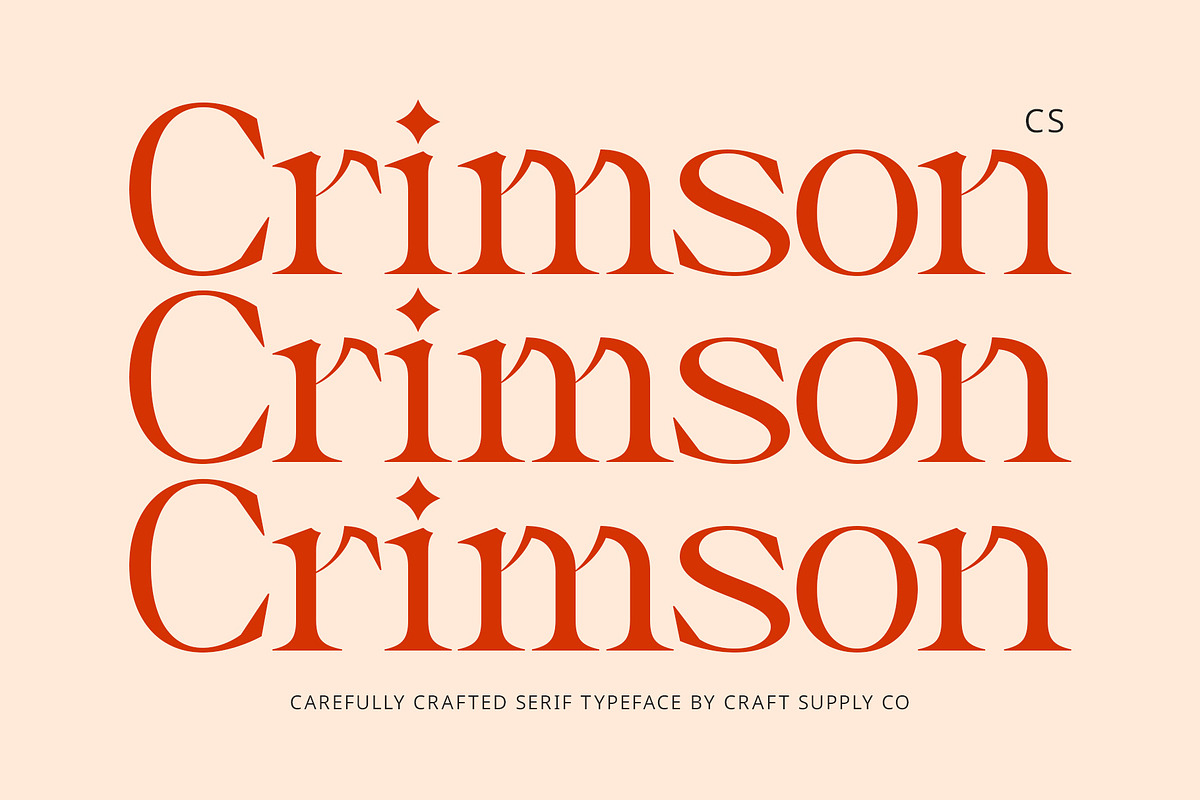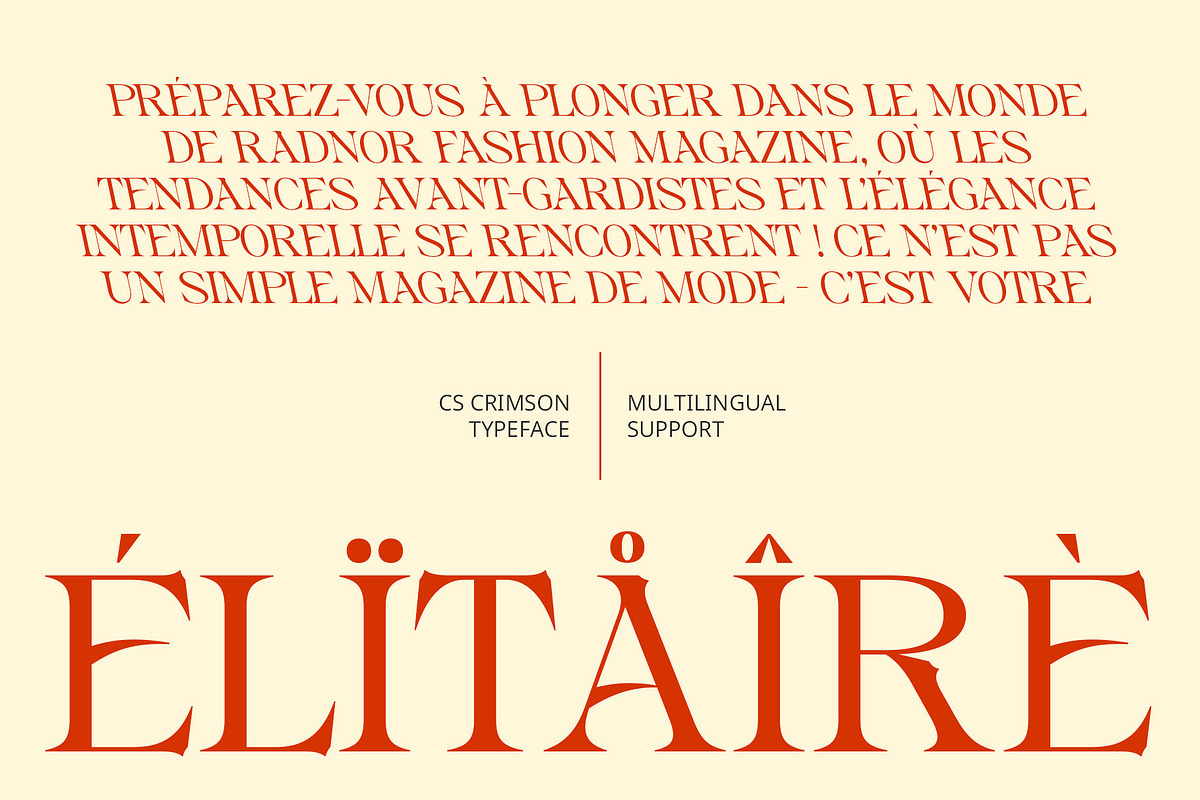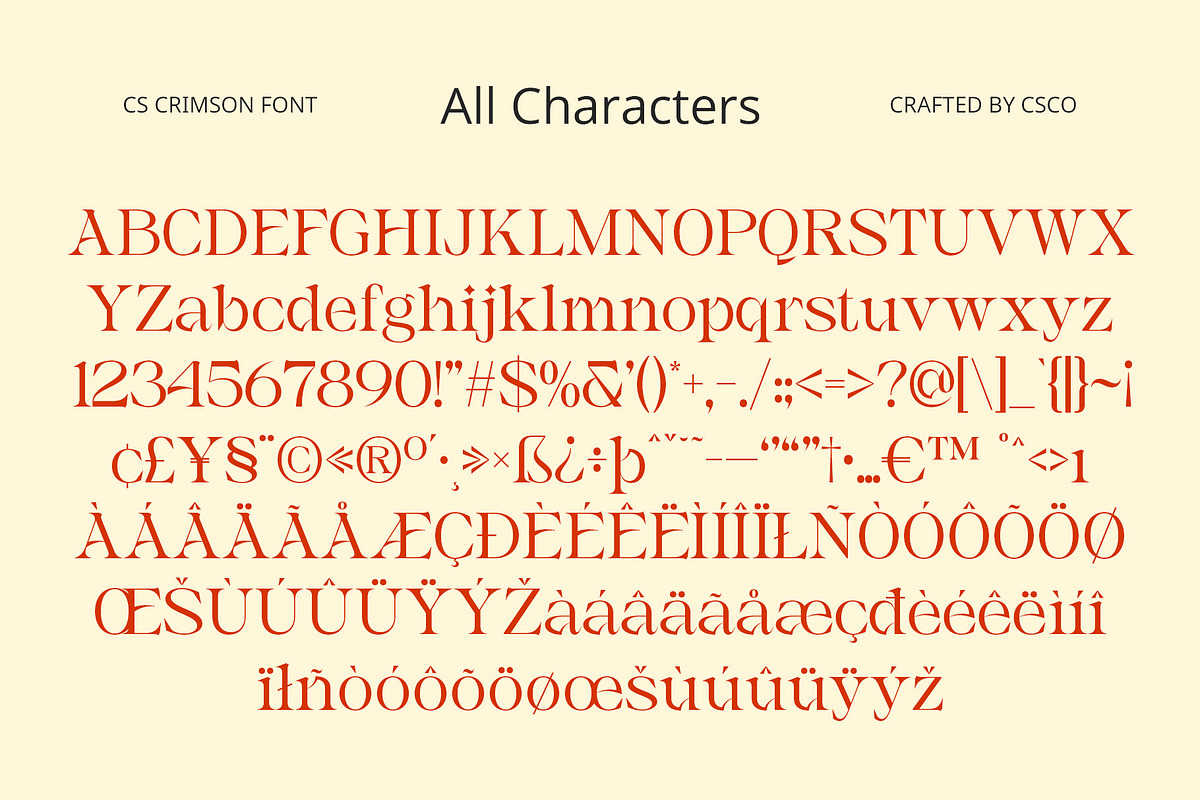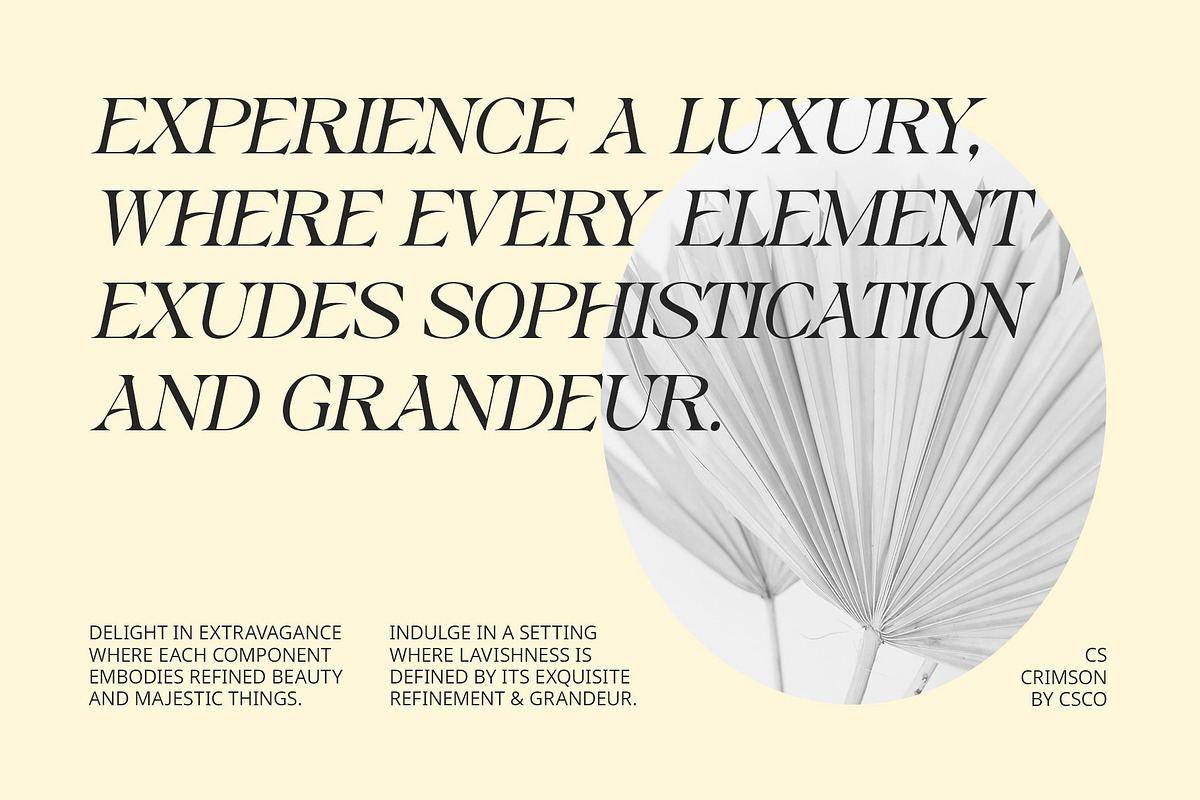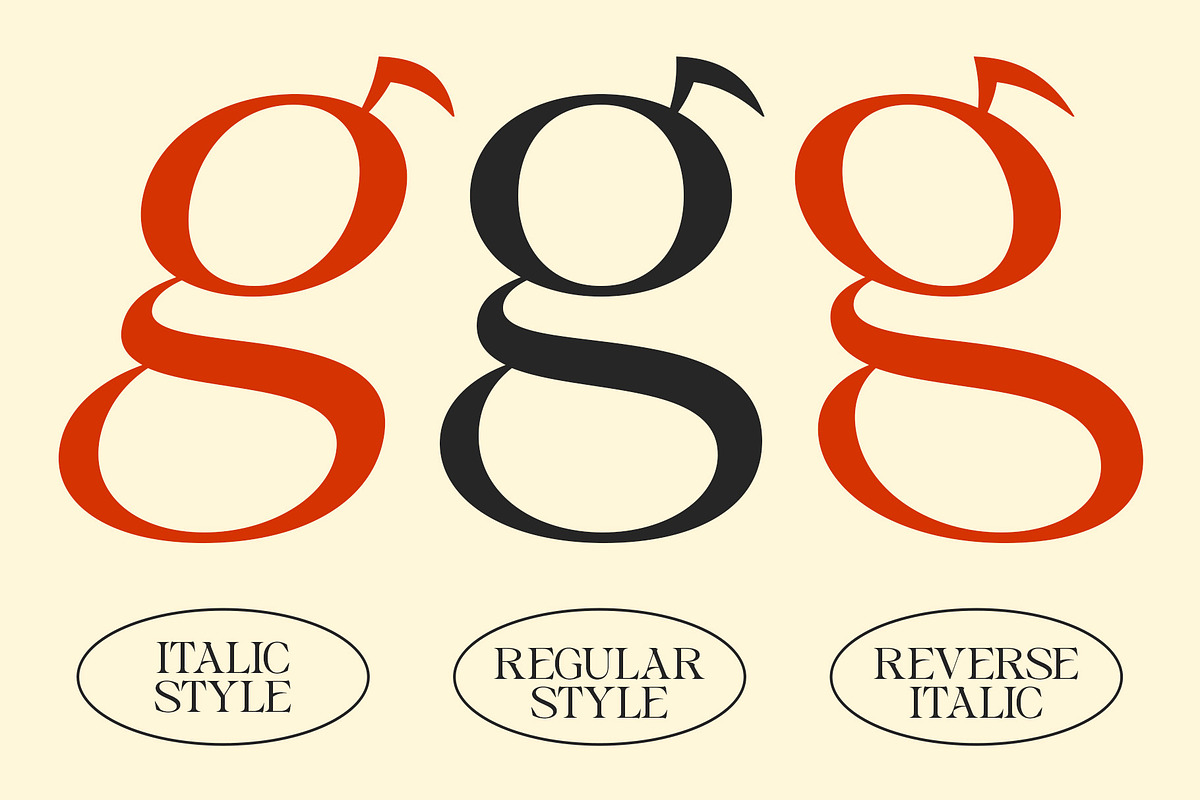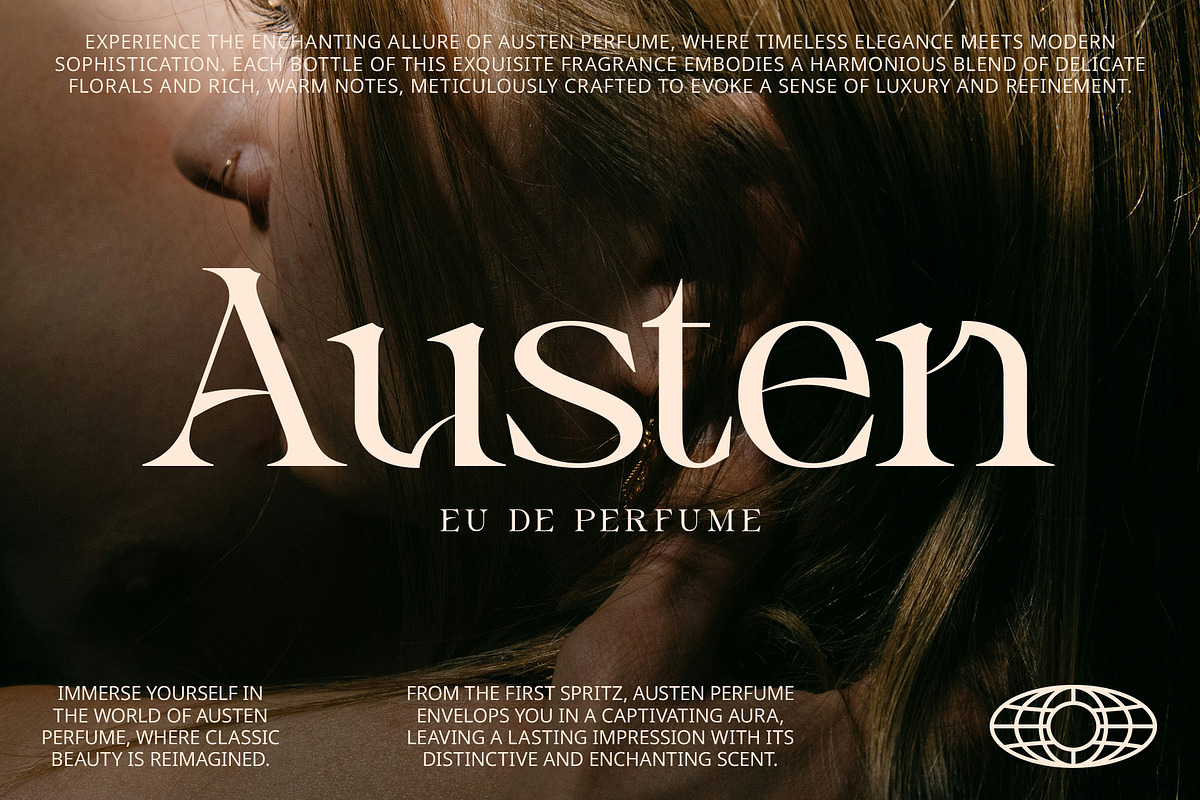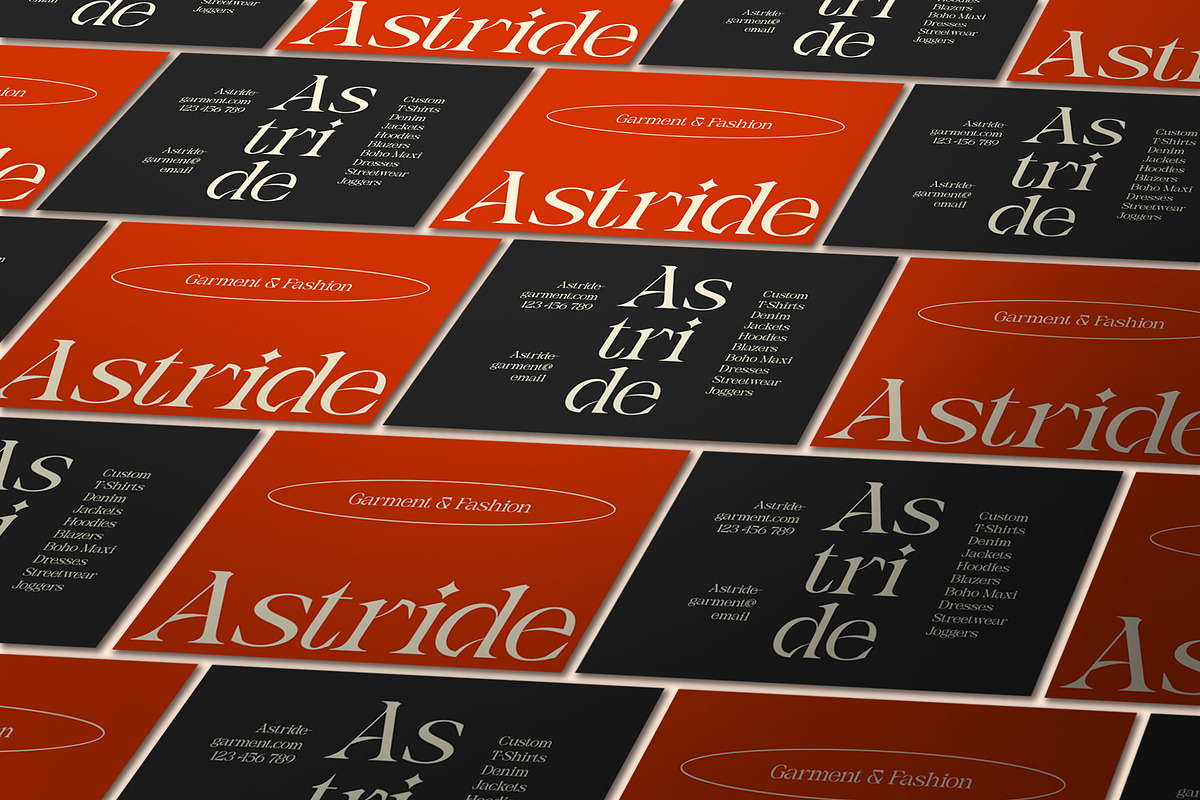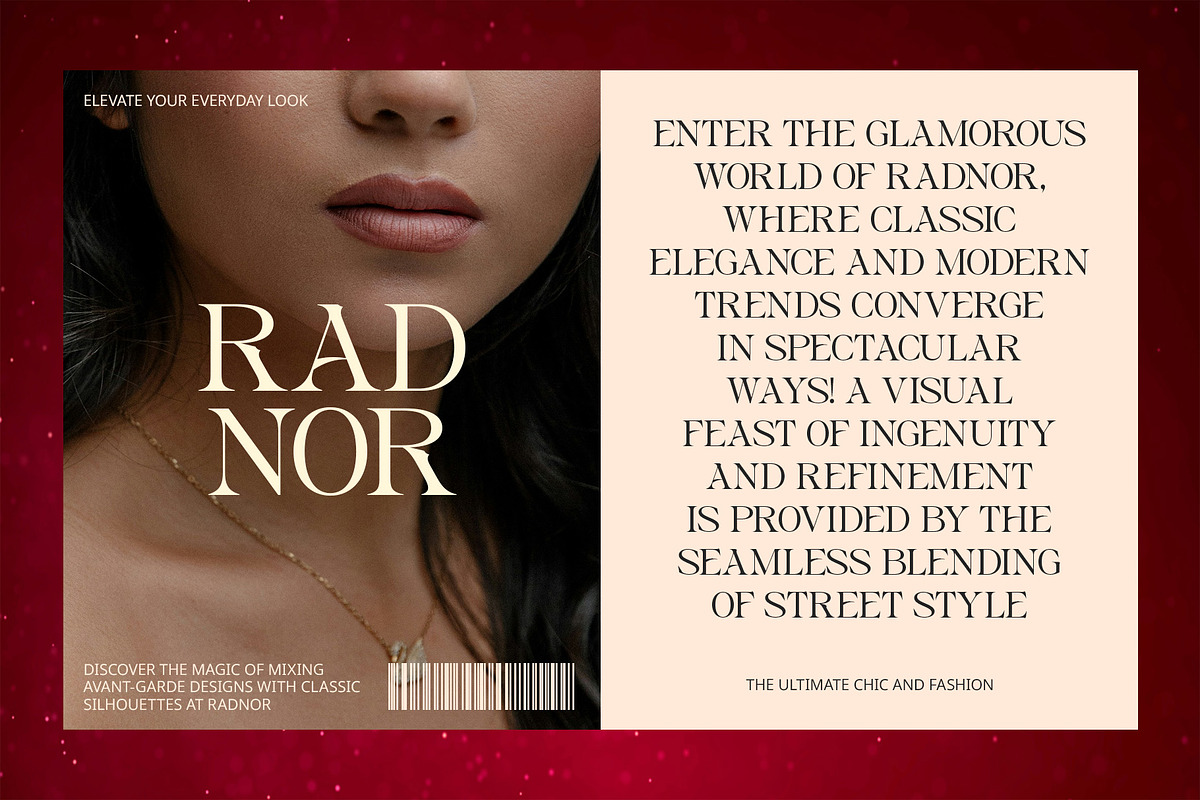
CS Crimson – Classic Font
CS Crimson – Classic Font: Timeless Elegance and Sophistication
Modern Serif with Classic Charm Discover CS Crimson, a modern serif font that seamlessly blends classic charm with elegant sophistication. Its refined letterforms and balanced proportions exude timeless beauty, making it ideal for high-end branding and luxurious invitations.
Perfect for High-End Branding and Editorial Layouts CS Crimson is perfect for high-end branding and editorial layouts. The font’s classic charm combined with its modern design ensures your projects radiate grace and refinement, making a lasting impression.
Exudes Timeless Beauty With its refined letterforms and balanced proportions, CS Crimson captures the essence of tradition while maintaining a contemporary edge. This blend of old and new creates a timeless beauty that enhances any design.
Adds Grace and Refinement CS Crimson adds a touch of grace and refinement to any project. Its sophisticated design is perfect for luxurious invitations, high-end branding, and elegant editorial layouts, ensuring your designs stand out with classic elegance.
Ideal for Elegant and Sophisticated Designs Whether you’re working on branding, invitations, or editorial layouts, CS Crimson is the ideal choice for adding a touch of elegance and sophistication. Its timeless beauty and refined design make it perfect for projects that demand grace and style.
- CS Crimson Regular
- CS Crimson Italic
- CS Crimson Reverse Italic